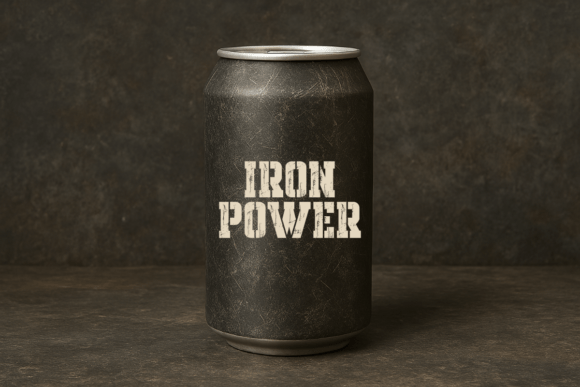
Grunge Corps Font
Grunge Corps is a bold stencil display font with a rugged, distressed style — perfect for adding a powerful, vintage-industrial touch to your creative projects. Inspired by military lettering and grunge textures, this typeface brings strong character and urban edge to everything from t-shirt designs to product labels. Whether you’re working on merch designs, posters, drink can branding, packaging, labels, or streetwear graphics, Grunge Corps will give your work a gritty, tactical, and impactful vibe. Its sharp stencil cuts and grunge details are ideal for projects that demand boldness and authenticity.